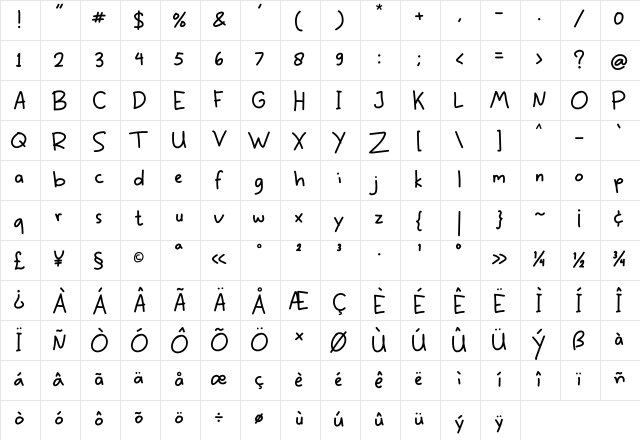
Siroep Mardjan Regular
| Designer | M. Pria Admaja |
Design Context for Siroep Mardjan Typeface
Siroep Mardjan takes a measured approach to typography — its balanced proportions and neutral character make it a reliable workhorse for both digital and print work.